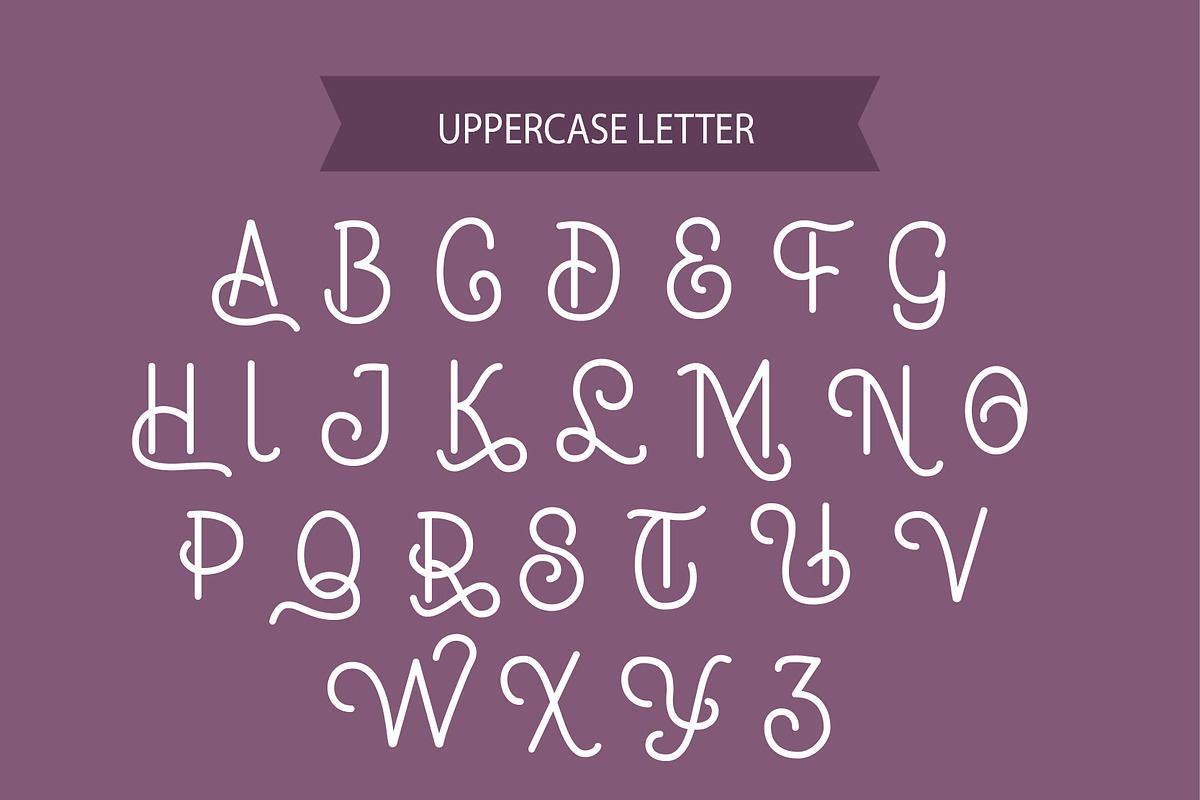
Please note, to use this font for commercial purposes, you must purchase the full version. Frog Land is a playful and unique font that brings a fun, whimsical touch to your designs. With its quirky, bouncy letterforms, this font is perfect for children's projects, event invitations, logos, and creative branding. Whether you're designing for a playful brand, a fun event, or a quirky logo, Frog Land adds personality and charm to your work. Test it out and enjoy free download access for personal use. Experience the fun and creative style of Frog Land Font Free Download before purchasing the commercial license. Add a playful, lively vibe to your designs with Frog Land.